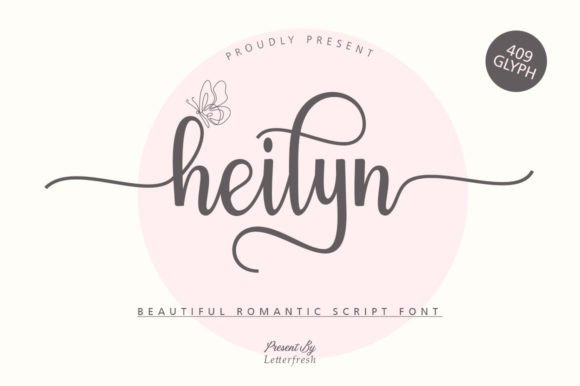
Introducing Heilyn Font, the ultimate choice for those seeking the best fonts to elevate their modern UI designs. Crafted with utmost precision by LetterFreshStudio, this dazzling script font is a true masterpiece.
Heilyn Font is more than just a typographic tool; it is a work of art that will captivate your audience. With its intricate details and flawless execution, this font will effortlessly add a touch of elegance and sophistication to any project.
Whether you are designing a website, creating a logo, or working on a branding project, Heilyn Font is the perfect companion. Its versatility knows no bounds, making it a valuable asset for any designer. You can unleash your creativity and explore endless possibilities with this font.
What sets Heilyn Font apart is its PUA encoding. This means that you can easily access a wide range of glyphs and ligatures, allowing you to customize your designs and add a personal touch. Say goodbye to limitations and unlock a world of creative potential.
With Heilyn Font, your designs will stand out from the crowd. Its unique style and attention to detail will leave a lasting impression on your audience. Whether you want to evoke a sense of luxury, sophistication, or playfulness, this font has got you covered.